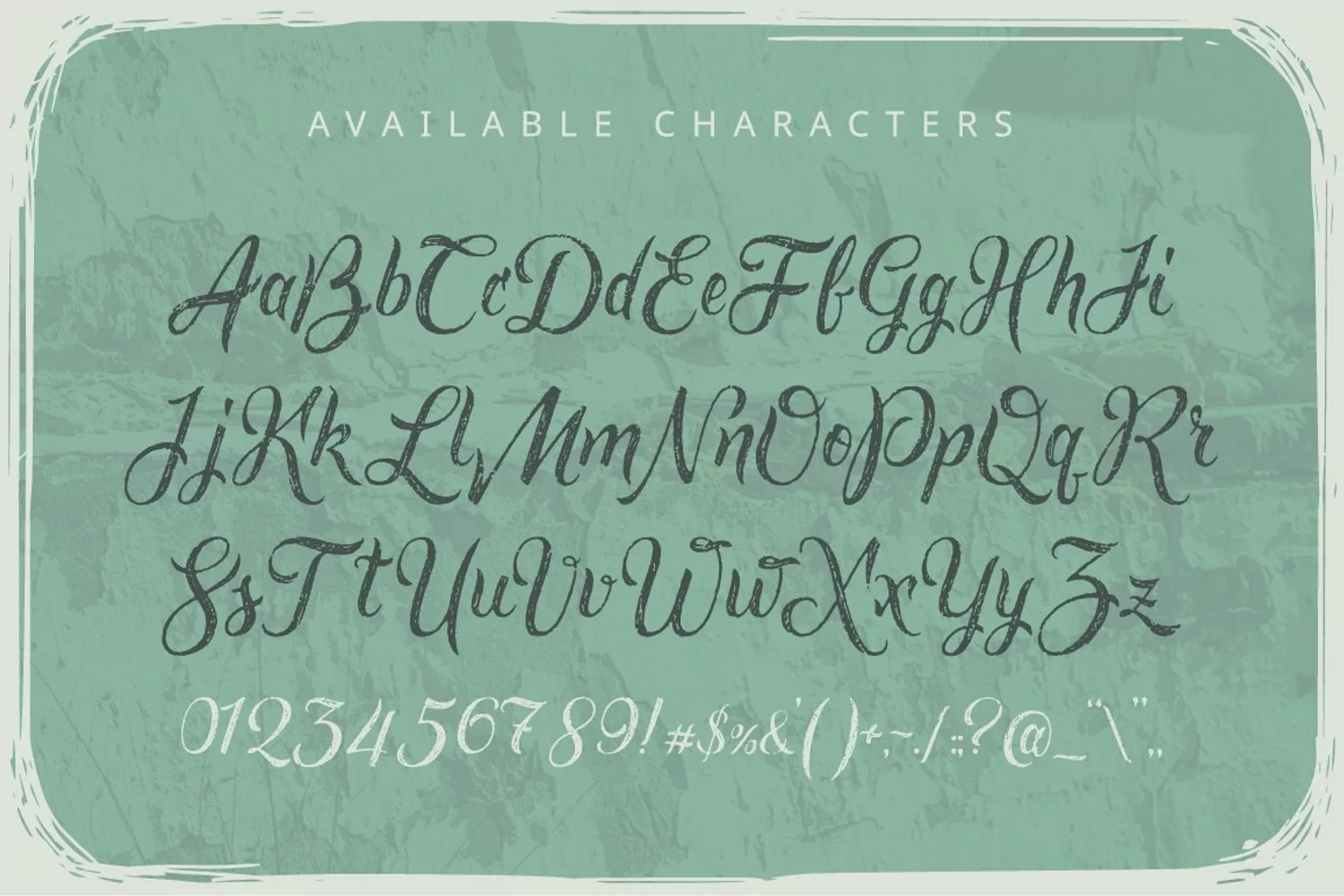
Introducing
handcrafted "Rusted brushpen" font. It's fancy brushpen script with
Note: Only latin characters are available (watch the third screenshot).